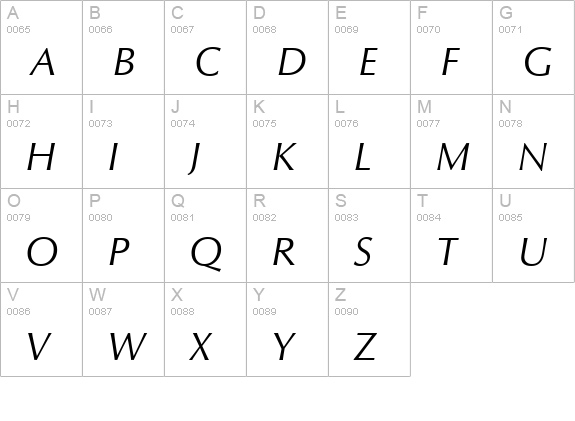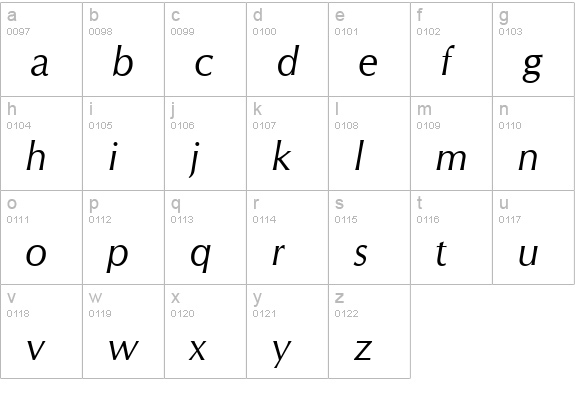
CG Omega Italic Font Details
CG Omega Italic is a distinctive, italic variant in the CG typeface family \xE2\x80\x94 well suited to design and typography projects.
CG Omega Italic font is a sleek and elegant typeface that exudes sophistication and modernity. Its slanted style adds a touch of flair to any design project, making it perfect for headers, titles, and creative typography. The italicized characters create a sense of movement and dynamism, capturing the attention of the viewer. This versatile font is ideal for both digital and print applications, and its clean lines ensure readability in any size. Whether you're designing a website, a poster, a logo, or a brochure, CG Omega Italic font will add a touch of class and professionalism to your work. The best part? CG Omega Italic font is available for free download at FontsMarket.com. You can easily access this stylish typeface and incorporate it into your projects without any cost. Don't miss out on this opportunity to enhance your designs with the elegance and versatility of CG Omega Italic font.